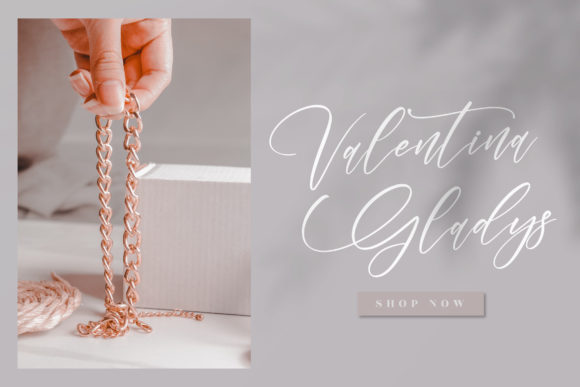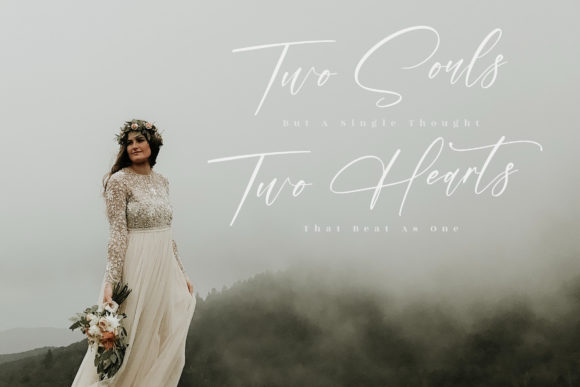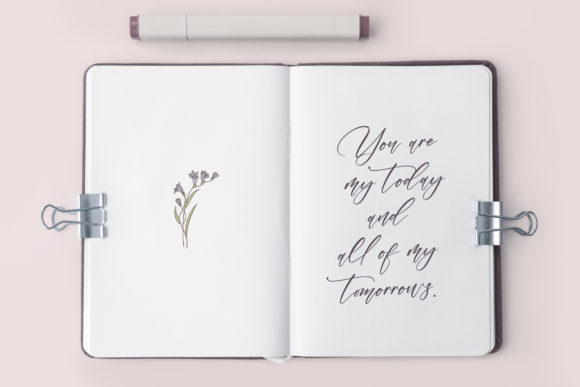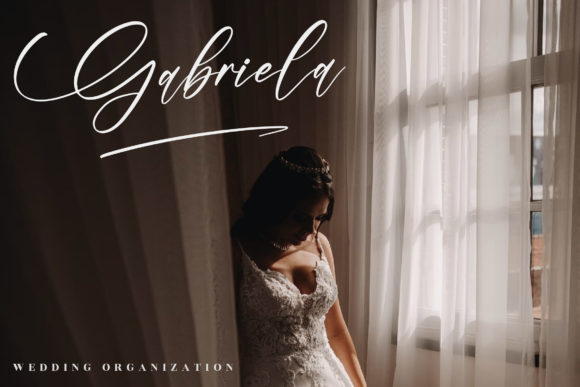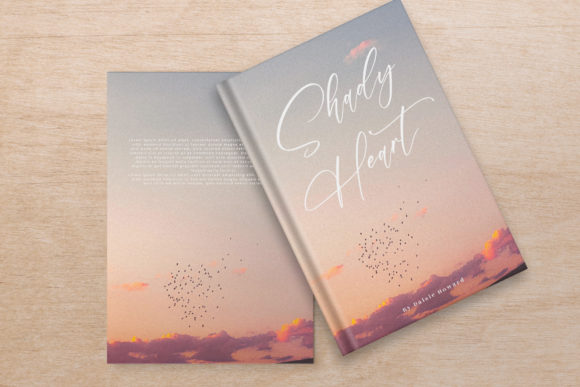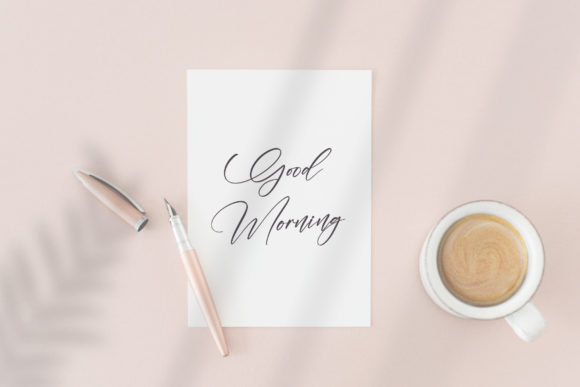
Gashina Beauty Font: Elevate Your Designs with Elegance and Sophistication
In the world of typography, few fonts capture the essence of romance and sweetness as beautifully as the Gashina Beauty Font. This exquisite calligraphy typeface is designed to add a touch of luxury to any design project, making it a perfect choice for designers and crafters looking to infuse their work with elegance and sophistication.
What Makes Gashina Beauty Font Stand Out?
Gashina Beauty Font is characterized by its unique and captivating features. The characters in this font dance along the baseline, creating a sense of movement and fluidity that is both visually appealing and engaging. This distinctive trait allows designers to add a dynamic touch to their projects, making them stand out in a crowded creative landscape.
Luxury and Versatility
One of the key benefits of using Gashina Beauty Font is its ability to add a luxury spark to any design project. Whether you’re working on a branding campaign, a packaging design, or a digital project, this font can help elevate your work to new heights. Its versatility makes it suitable for a wide range of applications, from elegant wedding invitations to sophisticated business cards.
Gashina Beauty Font is a perfect choice for designers and crafters looking to add a touch of elegance and sophistication to their work. Whether you’re a seasoned professional or just starting out, this font can help you create stunning designs that capture the essence of your brand or project. Its romantic and sweet aesthetic makes it ideal for projects that require a personal touch, such as handmade crafts, stationery, and more.
Tips for Using Gashina Beauty Font
To get the most out of Gashina Beauty Font, here are a few tips to keep in mind:
- Use it as a headline font to add a touch of luxury and sophistication to your designs.
- Pair it with a clean and simple font to create a striking contrast.
- Experiment with different colors and textures to add depth and personality to your designs.
Gashina Beauty Font is a truly exceptional calligraphy typeface that can help elevate your designs to new heights. Its romantic and sweet aesthetic, combined with its luxury spark and versatility, make it a perfect choice for designers and crafters looking to add a touch of elegance and sophistication to their work. With its PUA encoding and easy-to-use glyphs and ligatures, this font is sure to become a staple in your design toolkit.